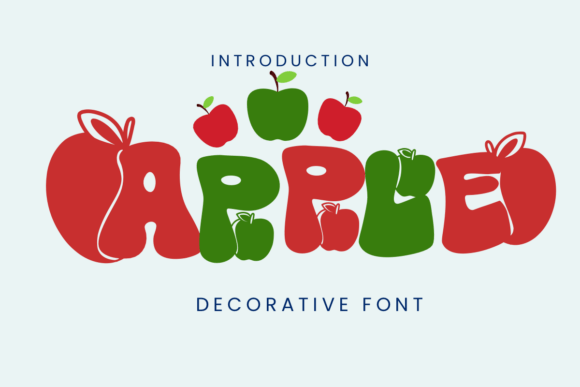
The Apple Font: A Decorative Delight for Creative Projects
I’ll never forget the time I was working on a greeting card design project, and I just couldn’t seem to find the right font. My client wanted something that was both playful and elegant, and I was determined to deliver. That’s when I stumbled upon the Apple Font, a decorative delight that’s perfect for a wide range of creative projects.
So, what do I love about the Apple Font? Here are a few things that make it stand out:
- ✨ It’s incredibly versatile, making it perfect for everything from taking notes to creating social media posts.
- ✅ The font has a unique, hand-drawn feel that’s both playful and sophisticated.
- 💕 It’s perfect for creating greeting cards, invitations, and other special occasion designs.
- 🤔 The font can be a bit tricky to read at smaller sizes, so it’s best to use it for larger design elements.
- ⚠️ Some of the characters, like the lowercase letters, can be a bit inconsistent in terms of sizing and style.
The Story Behind Apple Font
The Apple Font was designed with the goal of creating a unique, decorative font that’s perfect for creative projects. The designer wanted to create a font that’s both playful and elegant, with a touch of whimsy and personality.
| Author | Nongyao |
| What is the Apple Font best used for? | The Apple Font is best used for creative projects, such as greeting cards, invitations, and social media posts. |
| Is the Apple Font easy to read? | The Apple Font can be a bit tricky to read at smaller sizes, but it’s perfect for larger design elements. |
Overall, the Apple Font is a versatile and decorative font that’s perfect for a wide range of creative projects. With its unique, hand-drawn feel and playful personality, it’s sure to add a touch of whimsy and elegance to your designs.